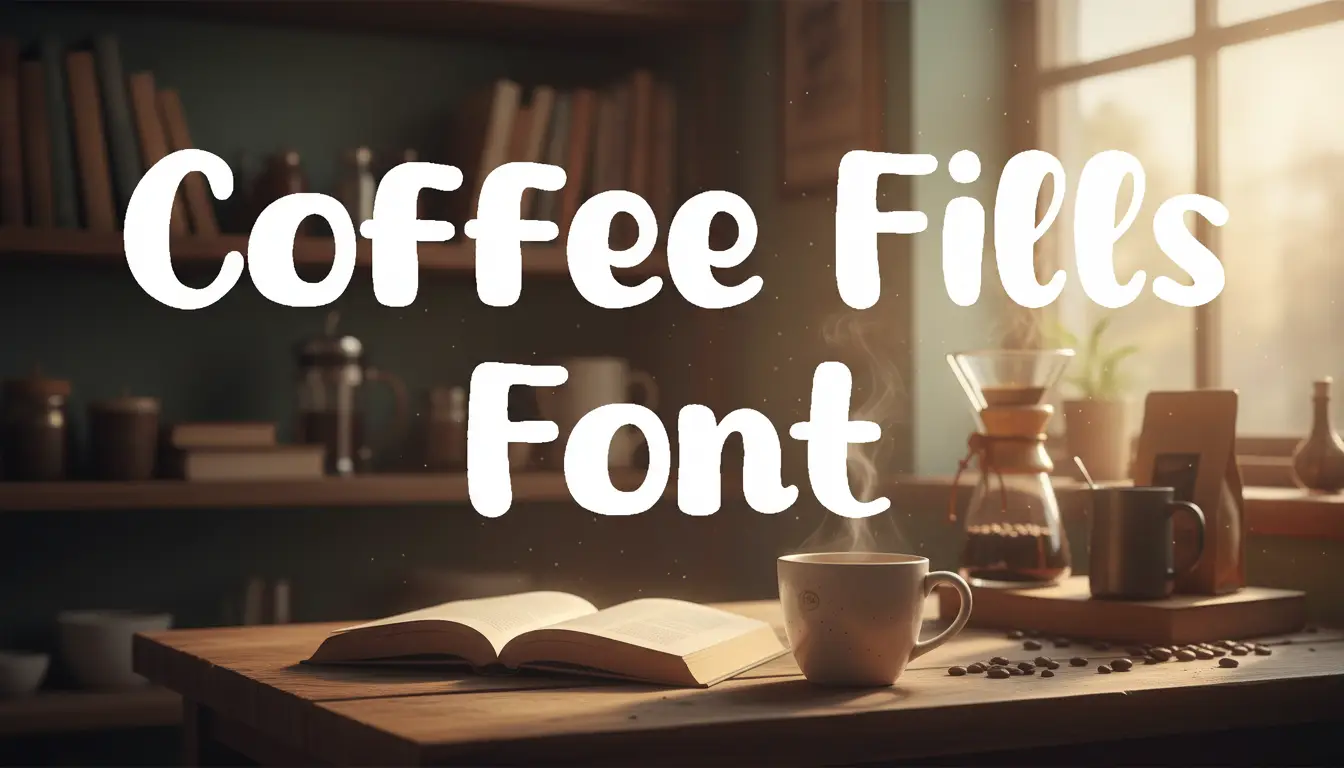
Coffee Fills Font
What You Can Type With Coffee Fills
You get every letter from A to Z in both cases and all the numbers from 0 to 9, which means Coffee Fills can handle full sentences, dates and prices. Common punctuation such as &, !, ? and @ is included as well. It doesn't include accented letters such as é or ñ, which makes it an English-only font.
Where Coffee Fills Works Best
Think of Coffee Fills for posters, logos and eye-catching headlines. Use it for one standout word or headline and let simpler fonts handle the rest.
Does Coffee Fills support accented letters?
No. Coffee Fills has no accented letters such as é, ñ or ü, so it's best for English text.